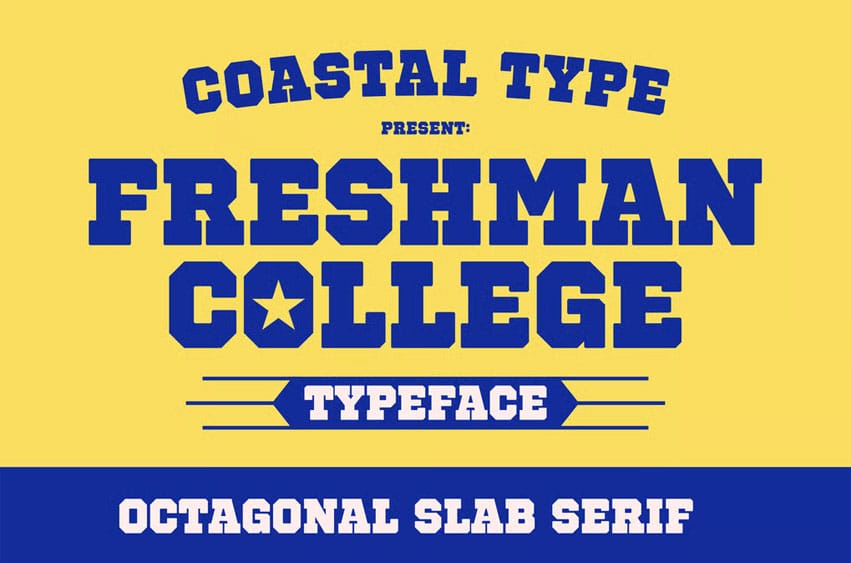
Freshman College Font is a display octagonal slab serif font inspired by varsity, college and university sports as well as the military.
Freshman College is great for sports, sports teams, schools, display work, quotes, posters, acronyms and headings.